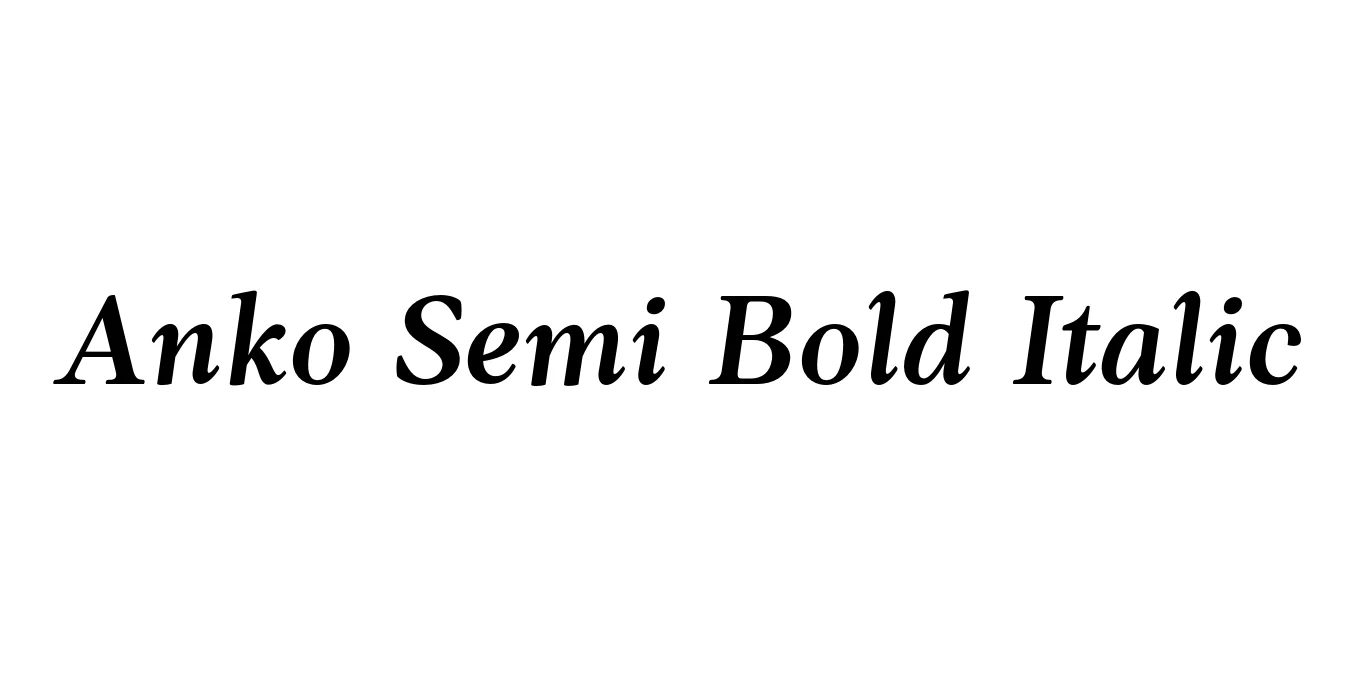
Anko Semi Bold Italic
Designed by Rama (Rama-Rama)
Anko Semi Bold Italic is a sophisticated serif typeface that expertly balances traditional calligraphic proportions with modern digital design sensibilities. Characterized by its sturdy construction and elegant slanted posture, this specific weight offers a unique visual rhythm that enhances editorial layouts, providing a touch of classical personality without sacrificing contemporary professional clarity.
The typeface was developed to be highly versatile across both print and digital mediums, featuring a generous x-height and refined terminals. The Semi Bold Italic variant is particularly effective for emphasizing key text segments or creating distinctive headers that require more visual weight than a standard italic, making it a favorite for designers seeking a blend of durability and grace.
Anko Semi Bold Italic Best Uses
Excellent for magazine headings, pull quotes, and sub-headers.
Ideal for professional identity systems and luxury product packaging.
Strong choice for high-impact landing page headers and stylized body text.
Perfect for book covers, posters, and high-quality stationery.